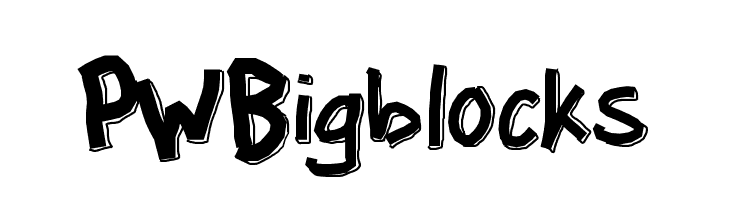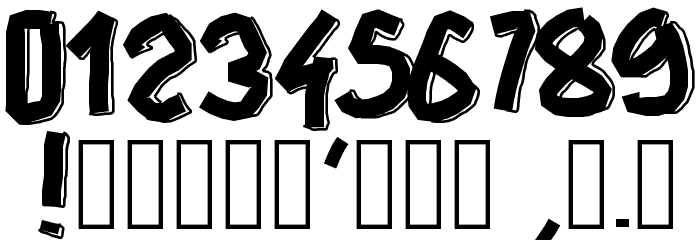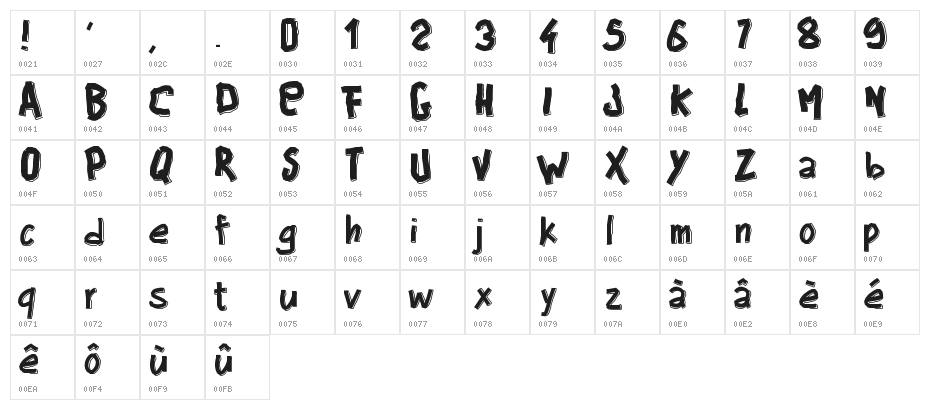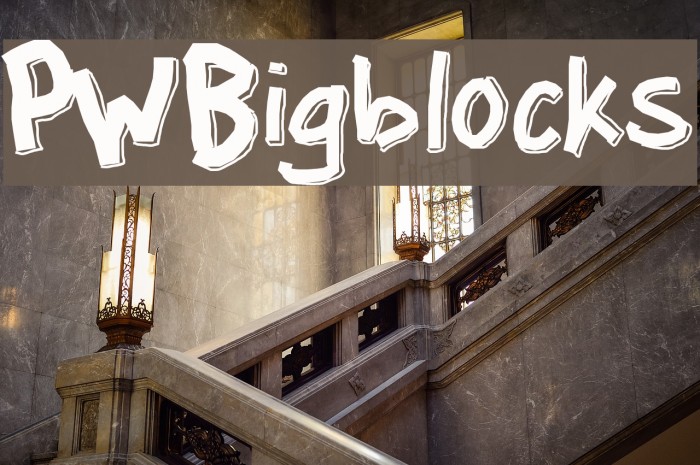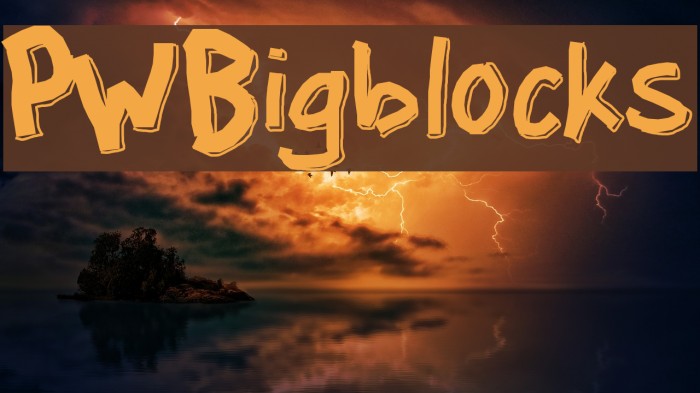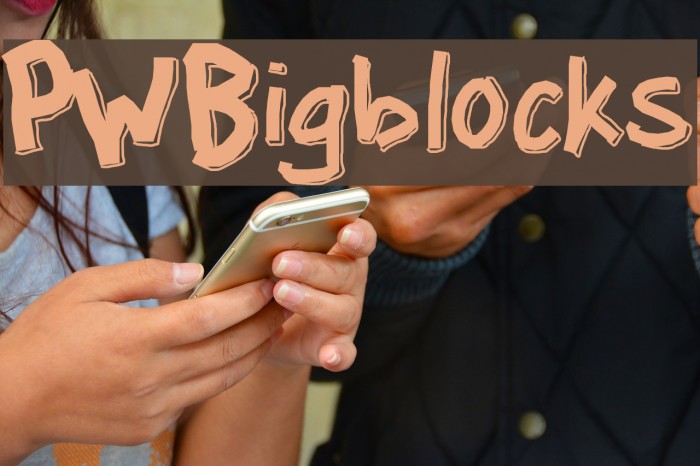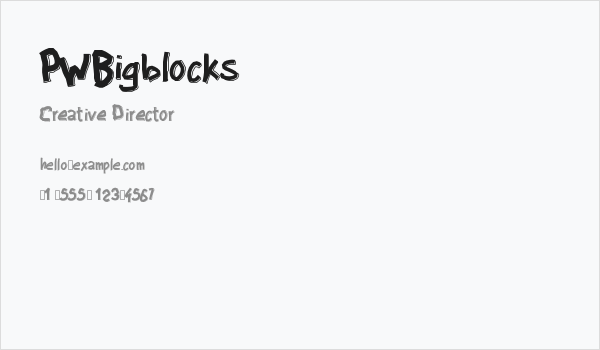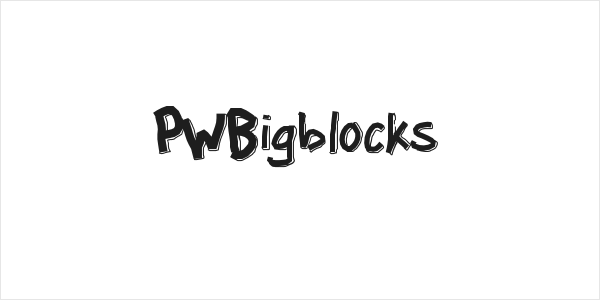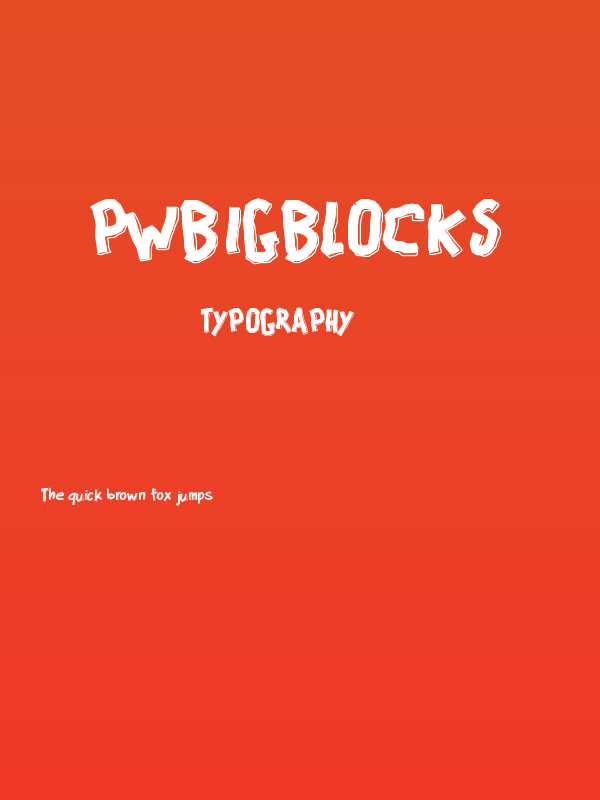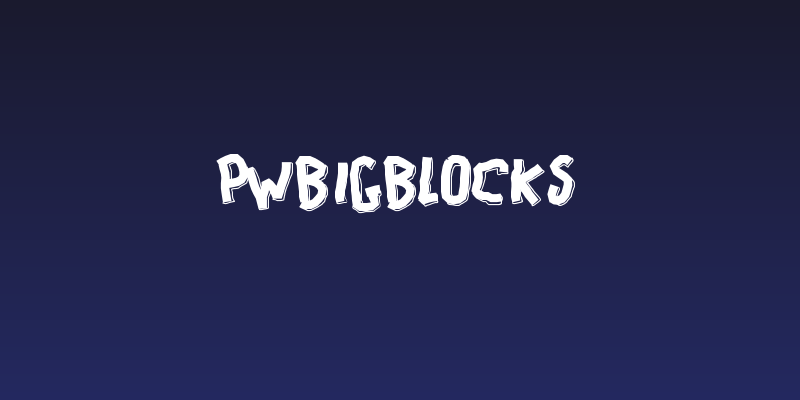
PWBigblocks Font
PWBigblocks Description
This font features a bold, hand-drawn style with a playful and energetic appearance. The characters are irregular and dynamic, giving a sense of movement and creativity. The strokes are thick and uneven, with a rough, sketch-like quality that adds to its informal and artistic feel. The uppercase and lowercase letters maintain a consistent style, while the numerals and special characters complement the overall design. This font is ideal for projects that require a fun and lively touch, such as posters, children's books, or creative branding.
| Overall Style | Playful, Artistic, Informal |
| Proposed Projects | Ideal for posters, children's books, creative branding, and informal designs. |